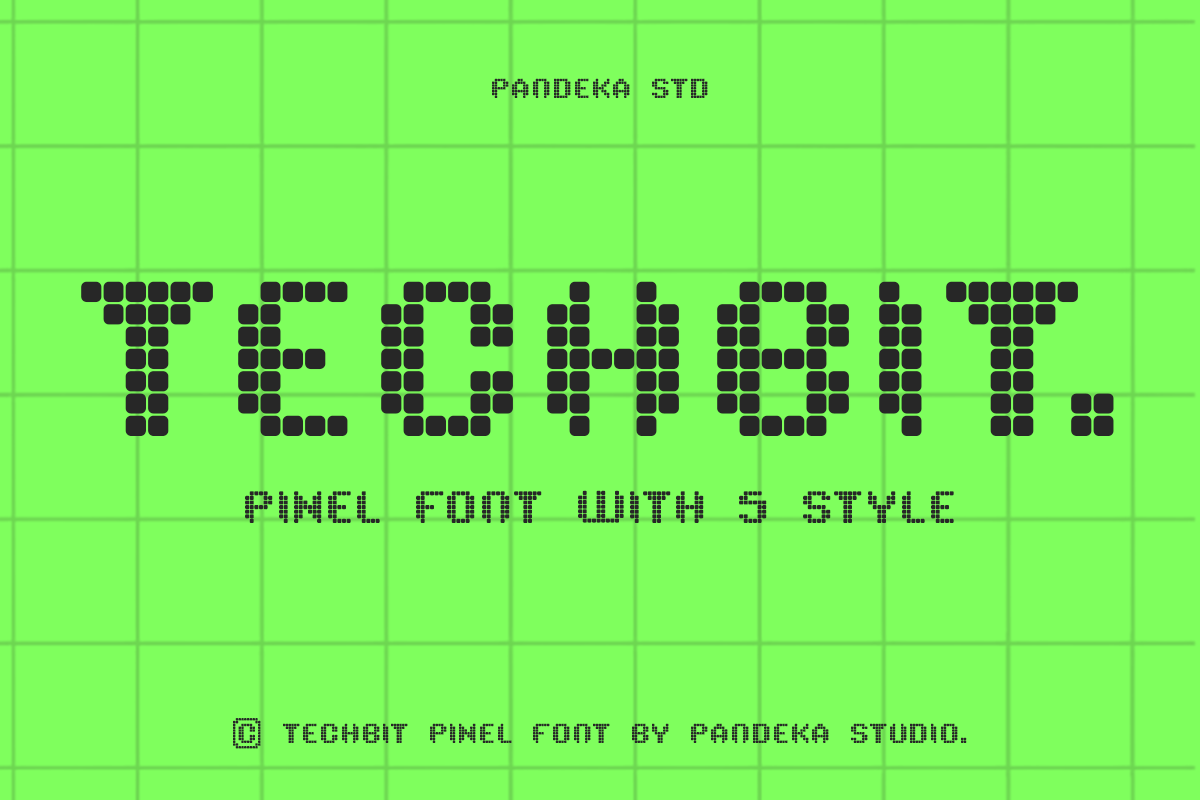
25+ Best Digital Fonts (+ Digital Clock and Number Typography)
Today, we are bringing you a collection of creative digital fonts that are perfect for giving your modern and technology-themed designs a retro-futuristic look and feel.
Digital fonts, with their clear, LCD-inspired aesthetics, bring a unique blend of functionality and futuristic flair to design projects. Whether you’re crafting a sci-fi movie poster, designing a cutting-edge app interface, or creating promotional materials for tech products, these fonts embody the essence of digital sophistication.
These digital fonts offer a direct nod to the world of electronics and timekeeping, transforming text into a statement of modern elegance and efficiency. Whether you’re seeking paid or free options, we’ve got you covered in this ultimate guide to digital typography. Let’s dive in.
Cyber – Technology Digital Font
Cyber is an innovative and futuristic font, best suited for sci-fi and technology-themed projects. With its distinctive dotted design, it lends a unique touch to posters, flyers, website headers, and high-tech logos. Cyber comes in OTF, TTF, and WOFF formats, broadening the possibilities for its application. This font is a perfect blend of creativity and tech aesthetics.
Flight – Dot Matrix Digital Font
The Flight is a unique and versatile typeface crafted with miniature grid-based dots to resemble old-school dot matrix printers. Great for editorial, branding, gaming, web designs, and more, this stylish nostalgic font adds a unique touch to any project. Its readability and charm make it a fitting tribute to dot matrix printers, known icons in global airports.
Clock Forge – Creative Digital Font
Clock Forge is a creative digital font that seamlessly blends the nostalgia of the Y2k and 90’s digital era with a fresh, futuristic twist. Perfect for digital media visuals, website design, and brand design, it provides unique flexibility with its regular weight variant, upholding its distinctive, lively character across various projects.
Digiday – Futuristic Digital Font
DIGIDAY is a futuristic digital font that marries modern elegance with avant-garde style, making it the perfect option for designs that require a cutting-edge appeal. Ideal for different applications such as logos, posters, greeting cards, or branding, DIGIDAY transforms any creative project into a futuristic masterpiece.
Digitalize – Digital Futuristic Techno Font
Digitalize is a unique creative asset ideal for classic, pixel-style design needs, particularly game and poster design. The perfection of its style and the overview of its headline make it stand out. It’s excellently designed for NFT and classic style projects, available in four file formats including otf, ttf, woff, and woff2.
Segmenta – Futuristic Digital Font
Segmenta is a uniquely futuristic seven-segment font tailor-made for digital designs. Perfect for creating an ultra-modern look, it’s ideally suited to projects with a sci-fi or technology theme, including cryptocurrency and film. Segmenta sets the stage for your creativity to shine through in your design projects.
Techbit – Pixel Digital Font
Techbit offers a fresh take on pixel font aesthetics, balancing nostalgia with a modern twist. This versatile font family comes in five unique styles, from Regular to Slant. Its digital design is fitting for games, apps, and more. Its complete set of characters supports numerous languages, making it a truly global choice.
Upper Clock – Digital Font
The Upper Clock is a strikingly modern, digital clock-style font. This unique, ETCH Clock-inspired design brings a blend of retro flat, the playfulness of memphis, and the sentimental charm of modern nostalgia to your display text. Upper Clock is more than just a typeface; it’s a versatile solution to your design needs, promising to turn ordinary into extraordinary.
Date Stamp – Digital Clock Font
The Date Stamp is a unique font comprised of two distinct sets of display fonts inspired by 14-segment LCD displays. Aimed at emulating the date imprint feature on conventional film photos, these fonts can also aptly serve in digital clock apps or retro display boards to create an authentic and classic appeal.
Digital Dreamer – 1980s Computer Font
Step back into the 1980s with the Digital Dreamer font. It’s a classic retro design, perfect for capturing the nostalgic essence of the period, with a modern twist. Excellent for retro-themed designs or to add vintage charm to other projects.
TImelist – Modern Digital Font
Timelist is a modern digital font with a balanced, symmetrical rhythm. Inspired by various digital typography designs, this typeface effortlessly combines elegance and minimalism. Its precisely adjusted proportions and subtle contrasts lend a unique, attractive look to any graphic design project, whether it be logos, brochures, or posters.
Pixcoose – Dotted Digital Font
Transform your digital landscape with Pixcoose— a dotted digital font. This unique font melds the worlds of coding and design into a mosaic of pixels and lines, bringing your letters and numbers to life. Pixcoose is versatile; it’s perfect for branding, ads, titles, and more. It’s available in regular weight and supports uppercase, lowercase, as well as multilingual texts.
Groutpix – Innovative Digital Font
Groutpix, a unique digital font, encapsulates the spirit of innovation and creativity. This futuristic design tool uses pixels as building blocks, turning each character into a pixelated work of techno art. It’s ideally suited for enhancing visuals in ads, branding, titles, and more. Groutpix comes in regular weight and features uppercase, lowercase, and multilingual characters.
Digital Anarchy – Futuristic Digital Font
Digital Anarchy is a cutting-edge digital font with a futuristic design. This sleek typeface blends avant-garde aesthetics with crisp, sharp edges, perfect for projects that aim to break boundaries. It’s versatile for use in innovative apps, futuristic game interfaces, or any graphics needing a modern edge.
Lakonet – Digital Display Font
Lakonet Digital Display Font is a playful and distinctively digital typeface. It includes uppercase and lowercase letters, numerals, a broad range of punctuation, ligatures, and multilingual support, effortlessly accessible without extra design software.
Digital Deco – Modern Digital Font
Digital Deco is a clever fusion of Art Deco’s opulence and modern, digital features. Its clean lines, precise angles, and smart use of negative space invite refreshing compactness to classic patterns. Best for creating logos and branding materials, this versatile typeface enhances your designs with a unique mix of vintage charm and progressive flair.
Cyberpunk Futuristic Digital Font
This is a unique font with a creative cyberpunk-style design ideal for crafting a hi-tech and futuristic ambiance. Offering both regular and light versions, it’s perfect for projects involving robotics, virtual reality, space, gaming, and more. This font package, easy to use for headers, comes in TTF, OTF and Web Font formats with additional design elements included.
Bugvirus – Digital Pixel Font
Bugvirus is a crisp, blocky font that masterfully brings back the feel of retro gaming and the digital age. Perfect for use in gaming-related applications, digital media, and tech-centric projects, it’s an excellent asset for business or design purposes looking for a hit of nostalgia. With its sharp edges and minimalist design, Bugvirus is a seamless addition to any creative project.
Linkspace – Futuristic Digital Font
Linkspace is a creative digital font, engineered with a techno-lean and inspired by the galaxy, giving a modern edge to your design projects. Ideal for space-themed games, tech events, social media covers, or YouTube banners, this unique font screams innovation and captures the essence of the evolving digital age.
Digital Caliper – Futuristic Digital Font
Digital Caliper is a fresh and futuristic typeface, drawing inspiration from the digital age and high-tech innovations. Characterized by sharp lines and geometric shapes, it brings a modern, energetic vibe suitable for tech, robotics, or science-related projects.
Debug – Digital Glitch Font
Debug is an artistic, modern typeface designed to emulate digital glitching effects, ideal for infusing your digital art or website with a contemporary vibe. It’s an all-caps font that boasts symbols, punctuation, numerals, alternates, and multilingual support. Used by many artists, it’s perfect for a plethora of creative projects, from branding to game title designs.
Stingo – Creative Digital Font
Stingo is a futuristic, cutting-edge typeface perfect for the realms of high-tech, internet, computers, and innovation-centric businesses. Its dynamic style can amplify your branding and logo design, invigorate headers and titles, and bring a modern touch to posters and banners.
Best Free Digital Fonts
DS Digital – Free Digital Clock Font
This free font features a creative letter design inspired by digital clock numbers. It has a classic 80s look and feel. And it works perfectly for both titles and paragraph text. The font is free for personal use.
Digital-7 – Free Digital Font Family
Digital 7 is another free digital font inspired by digital clocks. It has a complete set of all-caps characters with digital numbers. The font is ideal for creative title and heading designs. This font is also free for personal use.
VFD Nova – Free Digital Clock Font
Use this font to give your typography a modern digital look and feel. It includes unique digital clock-style letters with sharp edges. The font is free for personal and commercial use.
Digital Enter Below – Free Digital Font
This is an all-caps font featuring digital clock-style letters. This font has a modernized look that will fit perfectly for technology-themed design projects. This font is free for commercial use.
Free Digital Geometric Font
Another stylishly creative font with a digital geometric letter design. Each letter of this font features a unique design with curves and sharp edges. It’s great for crafting bold titles. The font is free for personal use only.